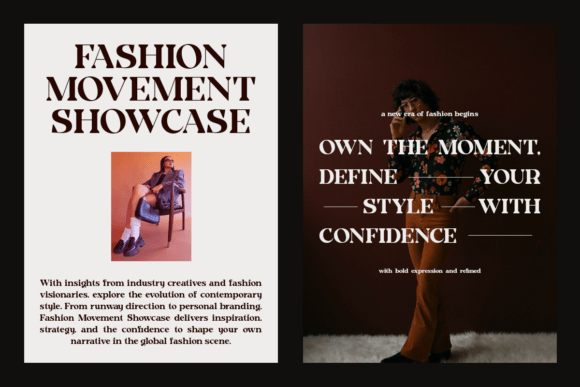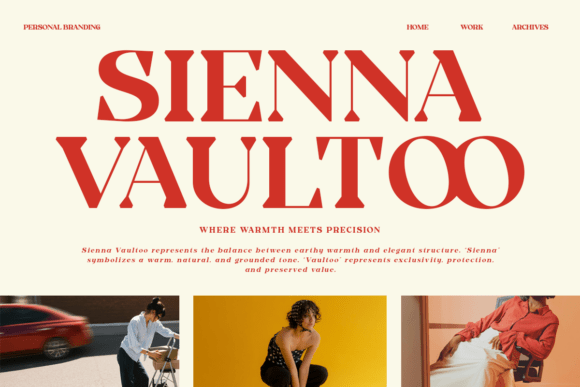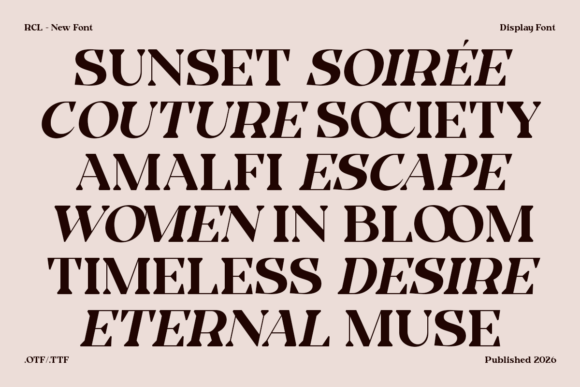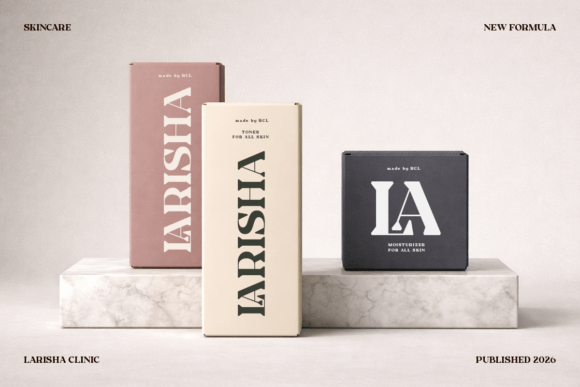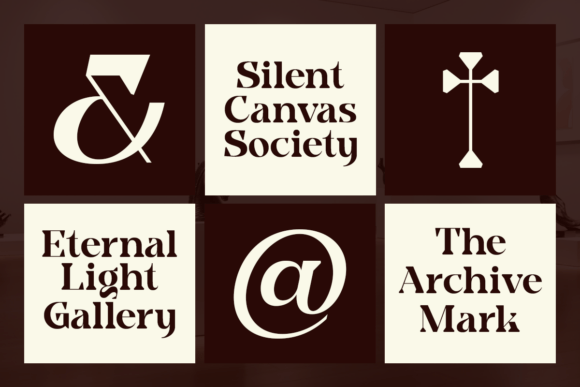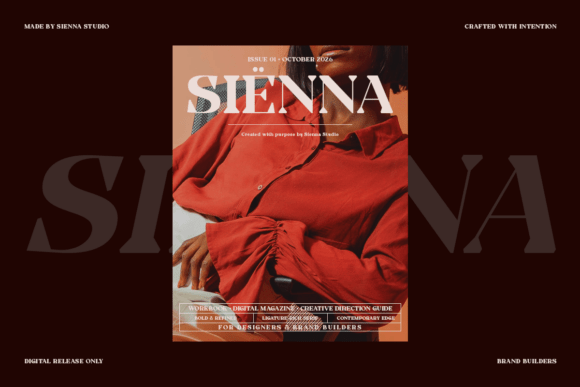
Introduction to Kesiq Serif Font
Make a bold statement with the Kesiq font, a high-contrast, elegant display face that blends architectural strength with high-fashion fluidity.
The Kesiq typeface features distinctive, sharp curves and a confident structure, making it a premier choice for luxury branding and premium visual identities Designed for maximum impact in large-scale compositions, each letterform in the Kesiq font is meticulously crafted to maintain readability while exuding a sophisticated editorial vibe.
Key Features of Kesiq Serif Font
Why Choose Kesiq Serif Font?